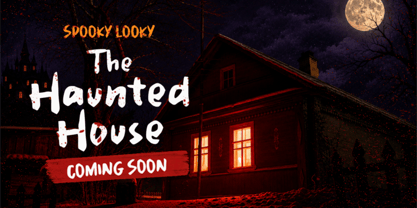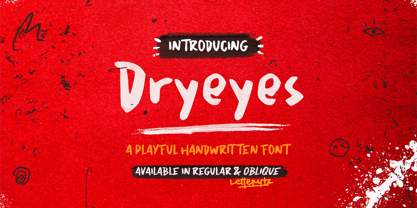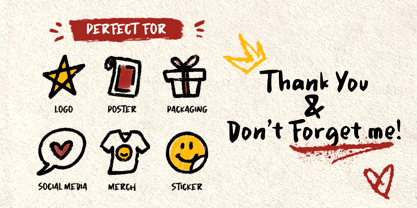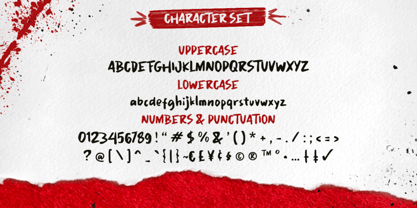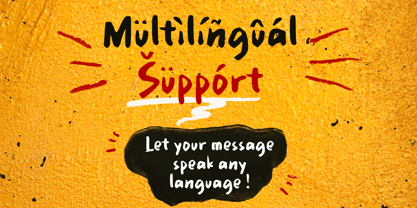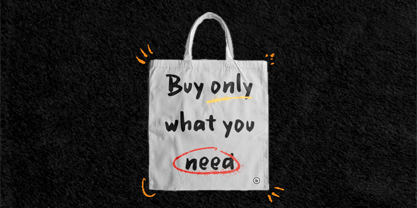
Dryeyes
by Letterytz CalliType
The Dryeyes Font Family was designed by Wahyu Eka Prasetya, Dian Angga Marytama and published by Letterytz CalliType. Dryeyes contains 2 styles and family package options. More about this family
Dryeyes – Playful Handwritten Display Font
Dryeyes is a unique handwritten display font crafted with an organic and expressive touch. Featuring bold curves, playful strokes, and naturally imperfect letterforms, this font delivers a warm handmade personality that instantly makes designs feel more alive and authentic.
Designed to balance casual handwritten charm with subtle quirky energy, Dryeyes works beautifully for branding, posters, packaging, social media, merchandise, stickers, and creative editorial projects. Its slightly uneven shapes and dynamic flow also make it suitable for light creepy or spooky themes, especially for Halloween-inspired visuals, horror posters, or fun eerie branding — without losing its friendly and readable appearance.
With its bold handwritten structure and organic flow, Dryeyes brings personality, creativity, and playful emotion into every project.
✨ Features:
✔ Handwritten organic display style
✔ Playful and expressive letterforms
✔ Regular & Oblique styles included
✔ Smooth curves with natural handmade feel
✔ Slight quirky and spooky aesthetic
✔ Great readability for headlines and branding
✔ Perfect for posters, logos, packaging, and merchandise
✔ Suitable for Halloween and fun creepy themes
✔ Works great for social media graphics and thumbnails
✔ Authentic handmade character style
✔ Eye-catching bold appearance
✔ Multilingual support
✔ Easy to combine with minimalist layouts
✔ Ideal for both casual and creative projects
Let Dryeyes add expressive energy and handcrafted personality to your next creative project!